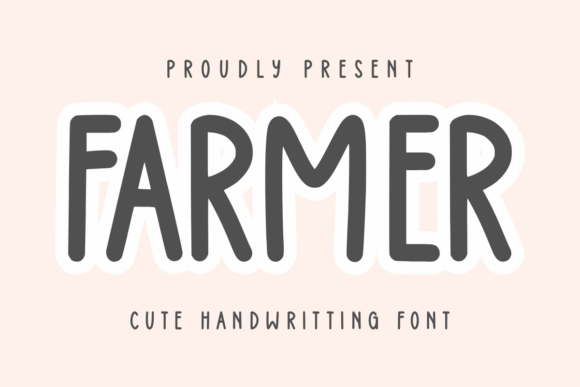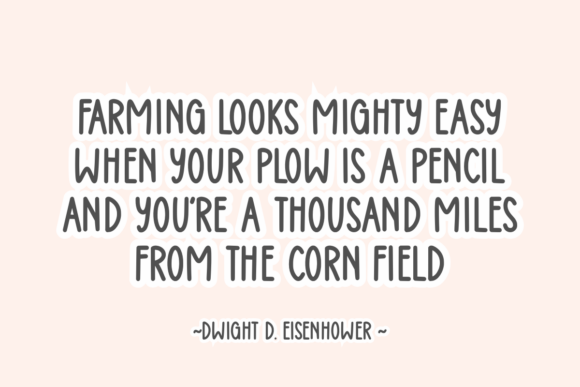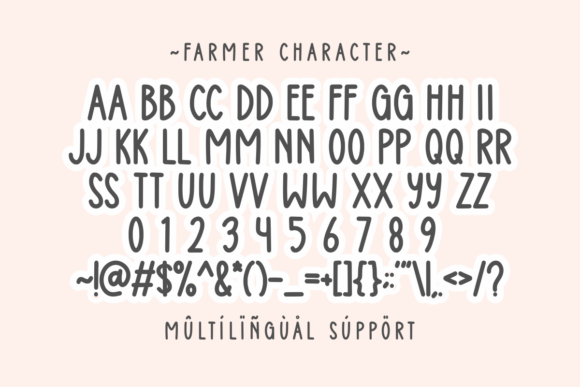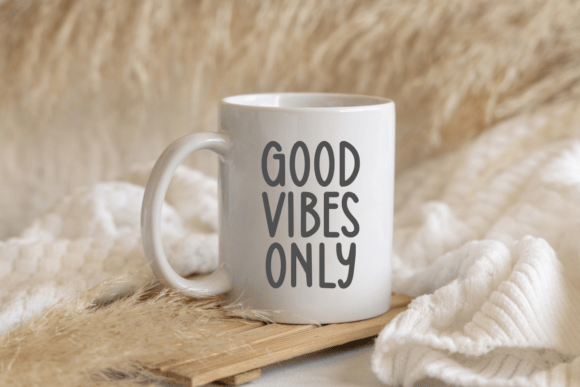
Farmer Font: Cute Handwritten Typography for DIY & Cricut Crafts
About the Farmer Font
The wait is over! The incredible Farmer Font is now available for your design toolkit. Farmer is a cute and playful handwriting font, perfect for planners, stickers, cards, quotes, and craft projects. Ideal for creative moms who love DIY, journaling, and Cricut crafts!
Its playful, slightly irregular nature makes Farmer Font ideal for projects needing a friendly, approachable feel. Excellent choices include branding for children’s products, crafting businesses, or small businesses with a handmade aesthetic. It shines in short text applications like logos, headlines, and social media graphics. Avoid using it for large blocks of text or body copy; its informal style would hinder readability.
Pair Farmer Font with a clean sans-serif like Open Sans for contrast and readability in projects requiring both display and body text. For a more sophisticated look, consider pairing it with a delicate serif font like Lora, balancing Farmer’s casual charm with a touch of elegance. Alternatively, a geometric sans-serif such as Montserrat could provide a modern counterpoint.
Farmer Font’s overall personality is best described as cheerful and informal, conveying a sense of handmade charm and approachability. It’s not suitable for applications requiring formality or sophistication.
Farmer Font Usage Examples
Farmer Font Example